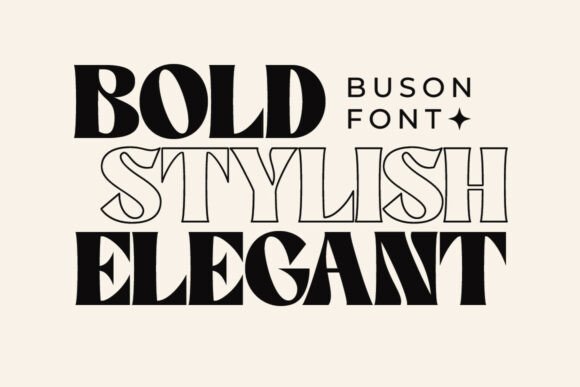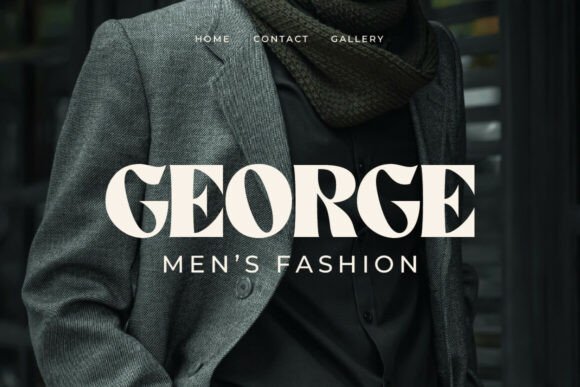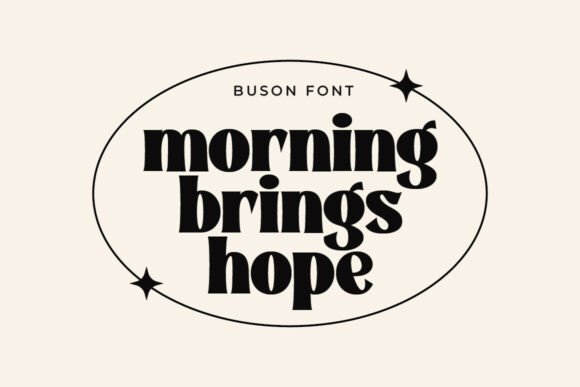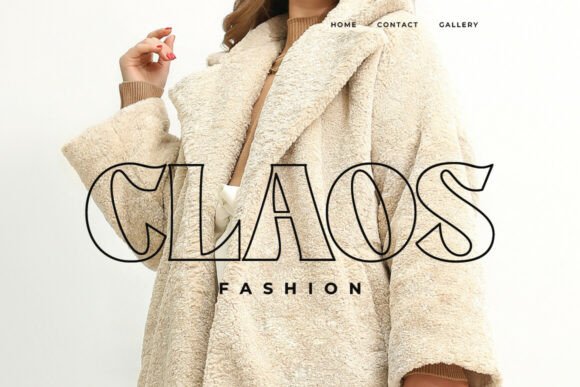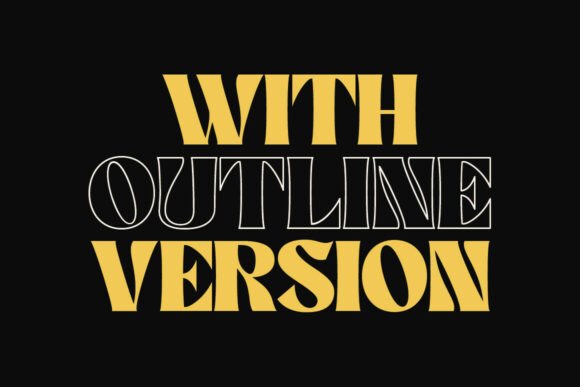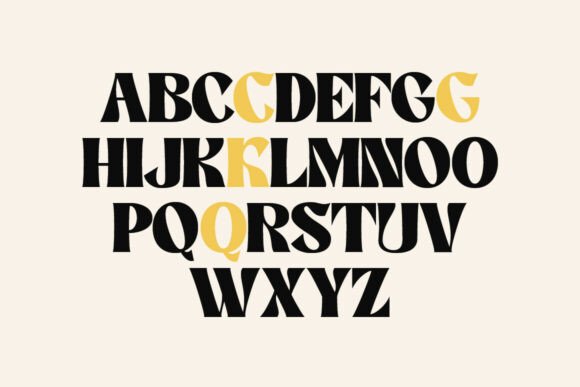
Introducing Buson Font: The Perfect Blend of Vintage Charm and Modern Twists
In the world of typography, fonts play a crucial role in conveying the tone and personality of a brand or design. For designers and crafters looking for a unique and stylish font that can add a touch of nostalgia to their work, Buson Font is an excellent choice. This stunning retro serif display font seamlessly blends vintage charm with a modern twist, making it perfect for a wide range of design projects.
The Unique Characteristics of Buson Font
Buson Font boasts bold strokes and playful curves that give it a distinctive and eye-catching appearance. Its unique cutout details and forms make it stand out from other serif fonts, adding a touch of personality and character to any design. The font’s retro vibe is reminiscent of classic posters and logos from the past, while its modern twist ensures it remains fresh and relevant.
Buson Font is incredibly versatile and can be used for a wide range of design projects, including:
• Posters: Add a touch of nostalgia to your posters with Buson Font’s bold and playful design.
• Logos: Create a unique and memorable logo for your brand with Buson Font’s distinctive cutout details.
• Headlines: Make your headlines stand out with Buson Font’s bold strokes and modern twist.
• Branding: Use Buson Font to add a touch of personality and character to your brand’s identity.
• Editorial Projects: Add a touch of vintage charm to your editorial projects, such as magazines, newspapers, and books.
Why Choose Buson Font?
So, why should designers and crafters choose Buson Font for their design projects? Here are just a few reasons:
• Timeless Design: Buson Font’s retro vibe ensures it remains timeless and relevant, even as design trends evolve.
• Versatility: Buson Font can be used for a wide range of design projects, from posters and logos to headlines and editorial projects.
• Unique Character: Buson Font’s distinctive cutout details and forms make it stand out from other serif fonts.
• Easy to Read: Despite its bold and playful design, Buson Font remains easy to read, making it perfect for body text and headlines.
Using Buson Font in Your Design Projects
Using Buson Font in your design projects is easy. Here are a few tips to get you started:
• Experiment with Font Sizes: Buson Font looks great in a variety of font sizes, from large headlines to smaller body text.
• Play with Color: Buson Font’s bold design looks great in a range of colors, from bold and bright to more muted and subtle.
• Pair with Other Fonts: Buson Font pairs well with a range of other fonts, including sans-serif fonts and script fonts.
In conclusion, Buson Font is a stylish and versatile retro serif display font that blends vintage charm with a modern twist. Its bold strokes, playful curves, and unique cutout details make it perfect for a wide range of design projects, from posters and logos to headlines and editorial projects. With its timeless design and easy-to-read format, Buson Font is an excellent choice for designers and crafters looking to add a touch of nostalgia to their work.
Whether you’re working on a digital project or a print project, Buson Font is sure to deliver a timeless retro vibe with a contemporary edge. So why not give Buson Font a try today and see how it can elevate your design projects?